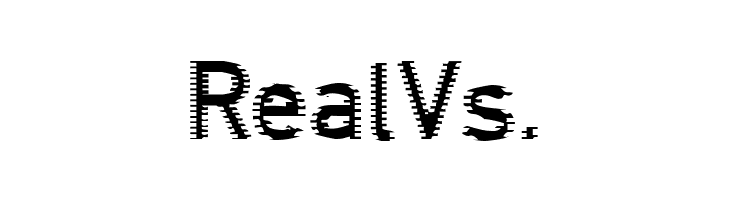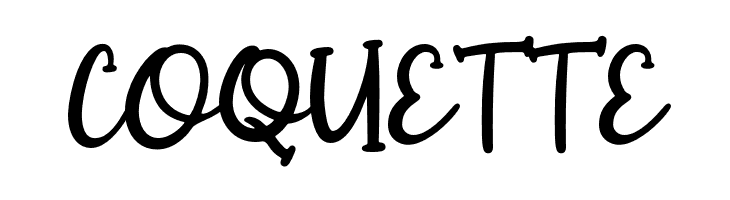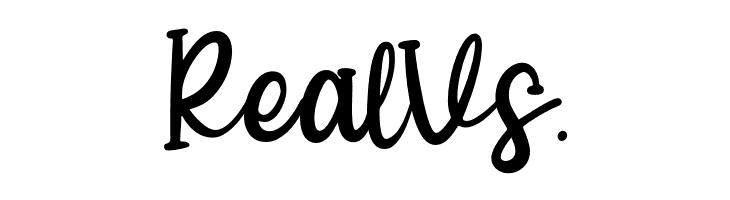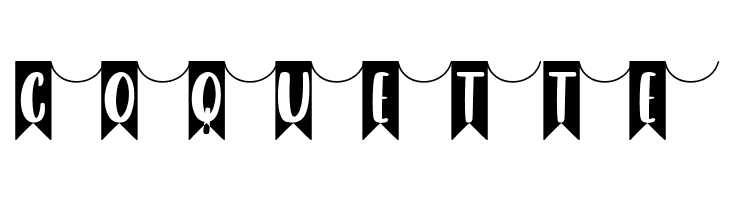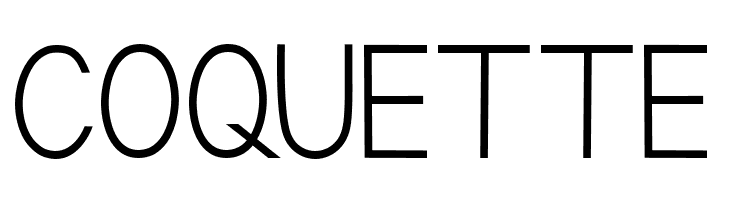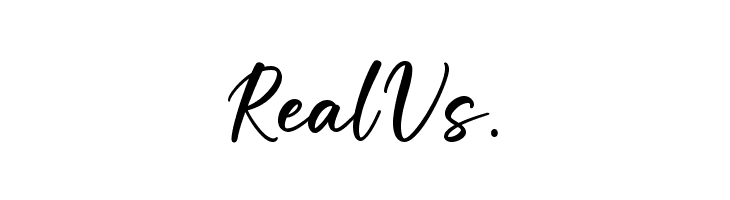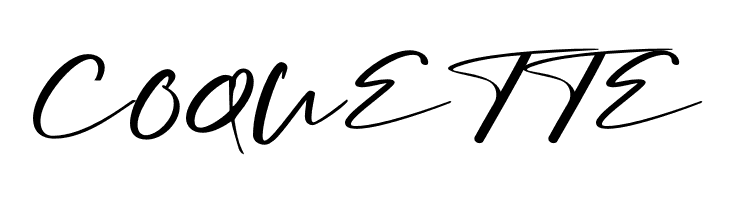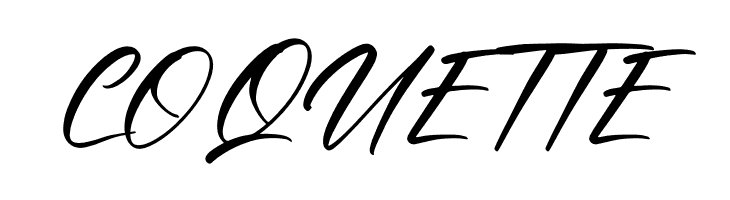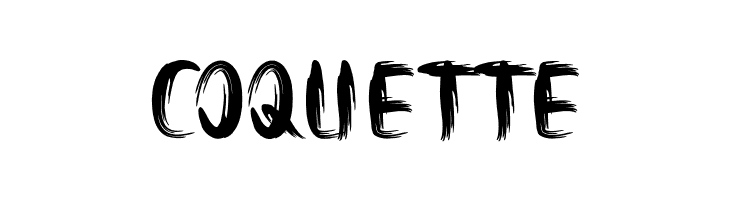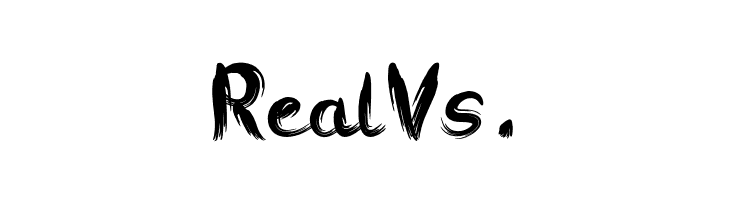
A playful, handwritten font with tall, narrow letterforms and a casual style.
A bold, geometric font with a modern, blocky aesthetic.
A fluid, handwritten style with elegant, elongated characters.
A playful, decorative font with characters enclosed in flag shapes, perfect for festive designs.
A modern, geometric sans-serif font with clean lines and balanced spacing.
A bold, decorative font with sharp serifs and unique character shapes.
A glitch-inspired font with a digital, pixelated aesthetic.
A tall, narrow font with a clean, modern aesthetic.
A modern vintage font with tall, narrow letterforms and decorative serifs.
An ornate and decorative font with elegant swirls and flourishes.
A dynamic, fluid handwritten script with elegant, flowing strokes.
A dynamic and flowing script font with elegant, fluid strokes.
A cursive, handwritten font with elegant, flowing lines.
A whimsical and artistic font with elongated strokes and a playful style.
A bold, slanted font with a modern and dynamic style.
A bold, dynamic font with a modern and geometric style.
A modern, narrow font with consistent stroke width and elegant design.
A bold, dynamic font with a slightly condensed style and consistent stroke weight.
A bold, expressive brushstroke font with a dynamic and artistic style.
A bold, brushstroke font with high contrast and dynamic style.
A bold, distressed font with a rugged, pirate-inspired aesthetic.
A creative and artistic font with a blend of geometric and organic shapes.
A bold, playful serif font with rounded serifs and a vintage charm.
A playful, hand-drawn font with bold, rounded characters.
A playful handwritten font with smooth, rounded strokes and a casual feel.
A lively and flowing script font with elegant cursive letterforms.
A lively and flowing script font with elegant curves and interconnected letters.
A playful, hand-drawn script font with flowing, connected letters.
A playful, bold font with thick, rounded strokes and a hand-drawn style.